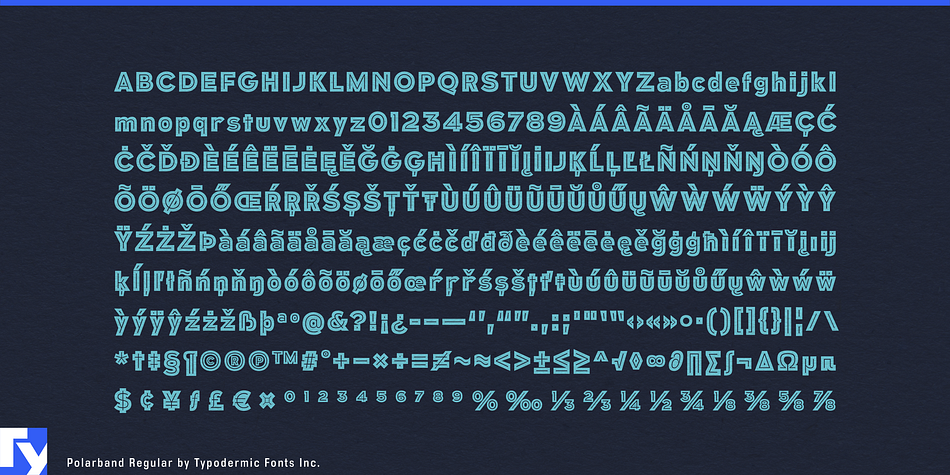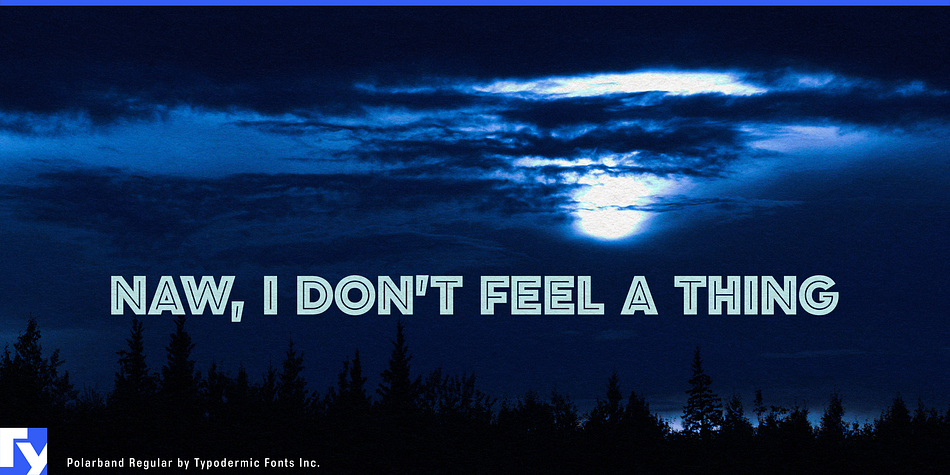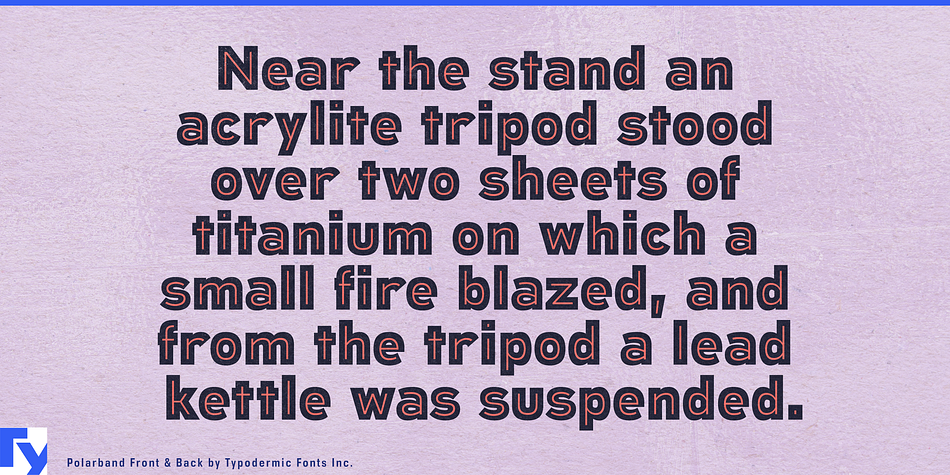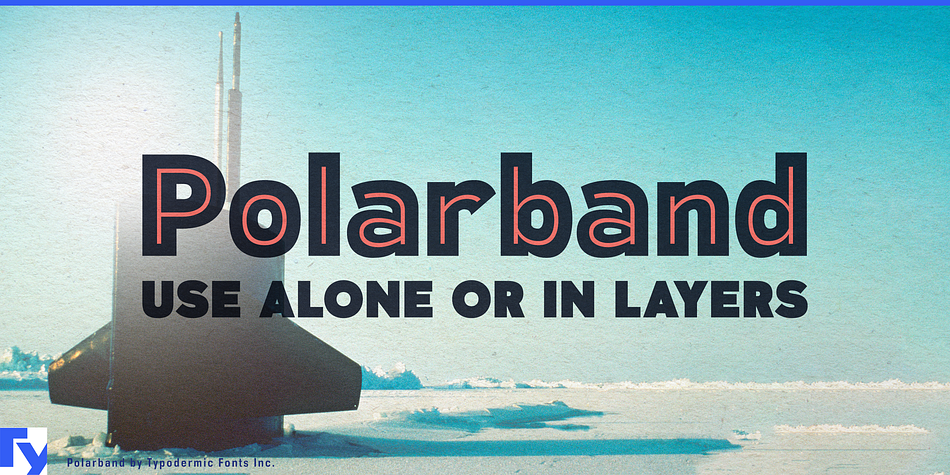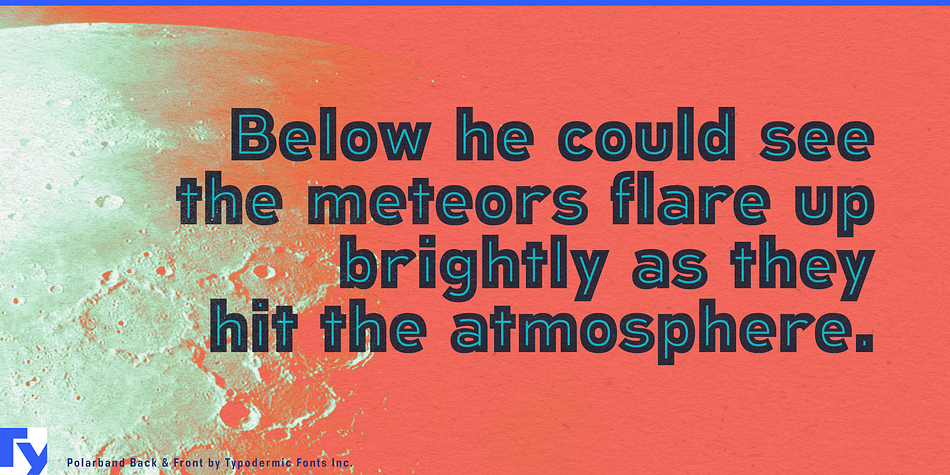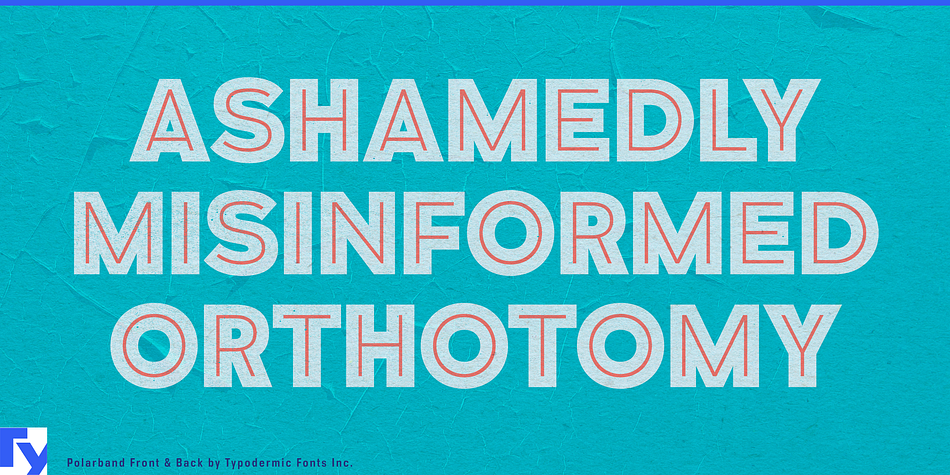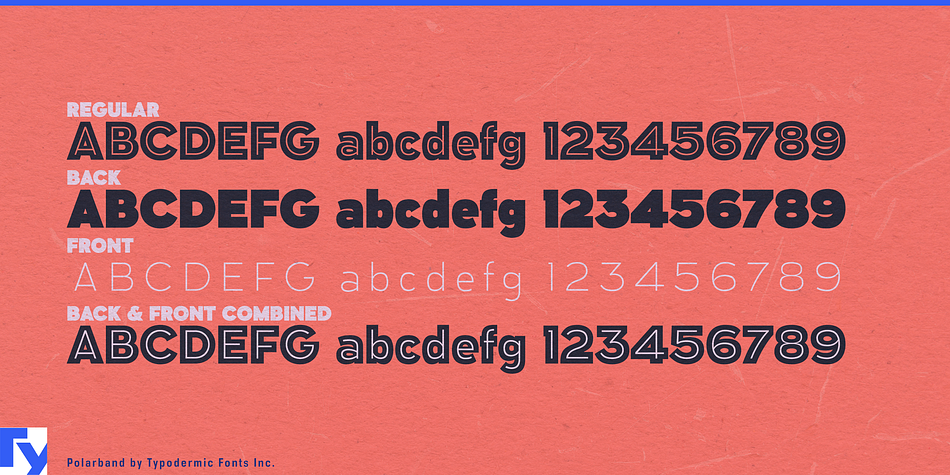
Polarband is a sans-serif headline typeface with stacked layers. Its appealing geometric shapes have a warm personality and allow the inner layer to nestle snugly. Play around with colorful stacks and offsetting several inline layers. Most Latin-based European writing systems are supported, including the following languages. Afaan Oromo, Afar, Afrikaans, Albanian, Alsatian, Aromanian, Aymara, Bashkir (Latin), Basque, Belarusian (Latin), Bemba, Bikol, Bosnian, Breton, Cape Verdean, Creole, Catalan, Cebuano, Chamorro, Chavacano, Chichewa, Crimean Tatar (Latin), Croatian, Czech, Danish, Dawan, Dholuo, Dutch, English, Estonian, Faroese, Fijian, Filipino, Finnish, French, Frisian, Friulian, Gagauz (Latin), Galician, Ganda, Genoese, German, Greenlandic, Guadeloupean Creole, Haitian Creole, Hawaiian, Hiligaynon, Hungarian, Icelandic, Ilocano, Indonesian, Irish, Italian, Jamaican, Kaqchikel, Karakalpak (Latin), Kashubian, Kikongo, Kinyarwanda, Kirundi, Kurdish (Latin), Latvian, Lithuanian, Lombard, Low Saxon, Luxembourgish, Maasai, Makhuwa, Malay, Maltese, Māori, Moldovan, Montenegrin, Ndebele, Neapolitan, Norwegian, Novial, Occitan, Ossetian (Latin), Papiamento, Piedmontese, Polish, Portuguese, Quechua, Rarotongan, Romanian, Romansh, Sami, Sango, Saramaccan, Sardinian, Scottish Gaelic, Serbian (Latin), Shona, Sicilian, Silesian, Slovak, Slovenian, Somali, Sorbian, Sotho, Spanish, Swahili, Swazi, Swedish, Tagalog, Tahitian, Tetum, Tongan, Tshiluba, Tsonga, Tswana, Tumbuka, Turkish, Turkmen (Latin), Tuvaluan, Uzbek (Latin), Venetian, Vepsian, Võro, Walloon, Waray-Waray, Wayuu, Welsh, Wolof, Xhosa, Yapese, Zapotec Zulu and Zuni.